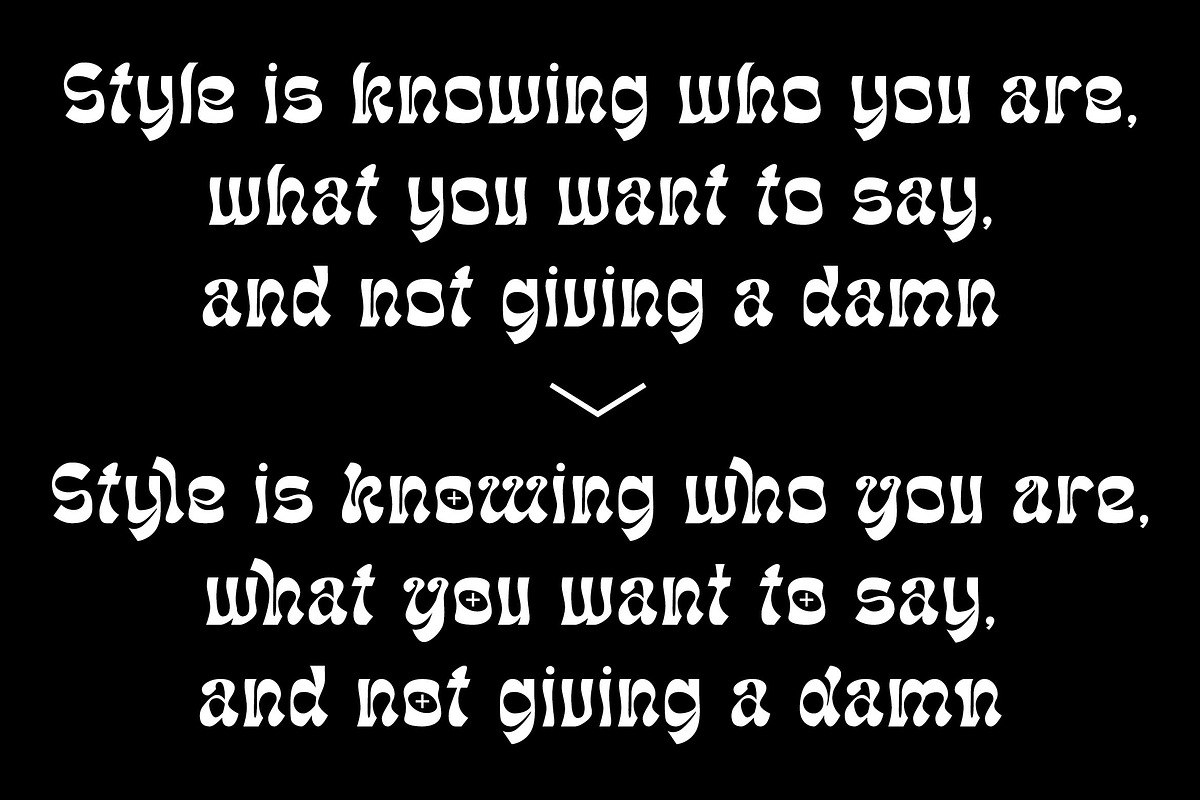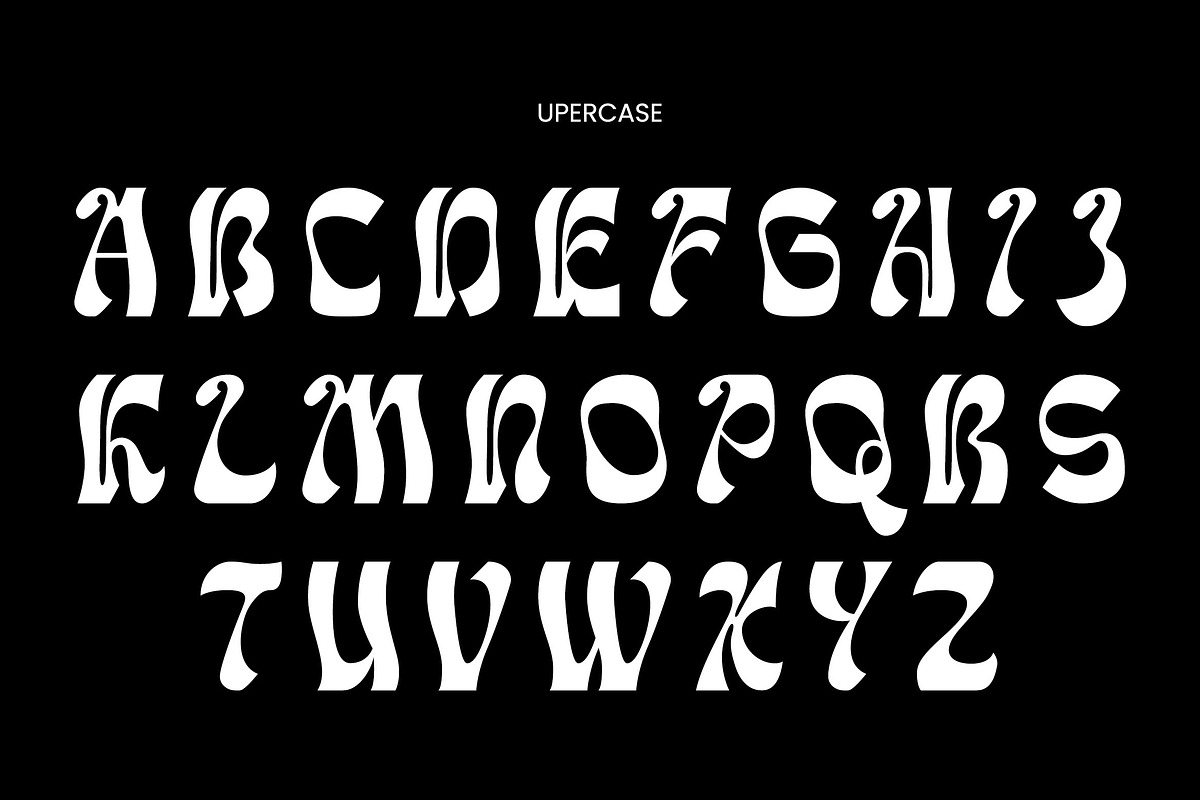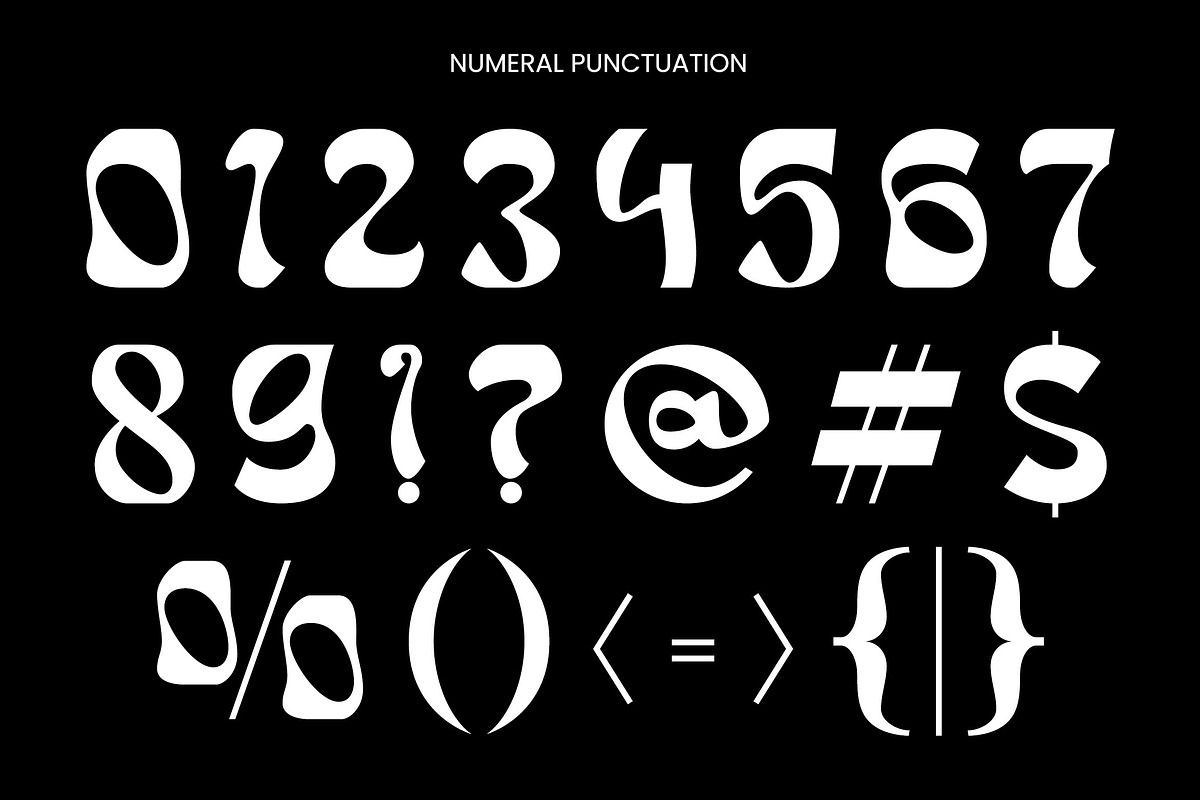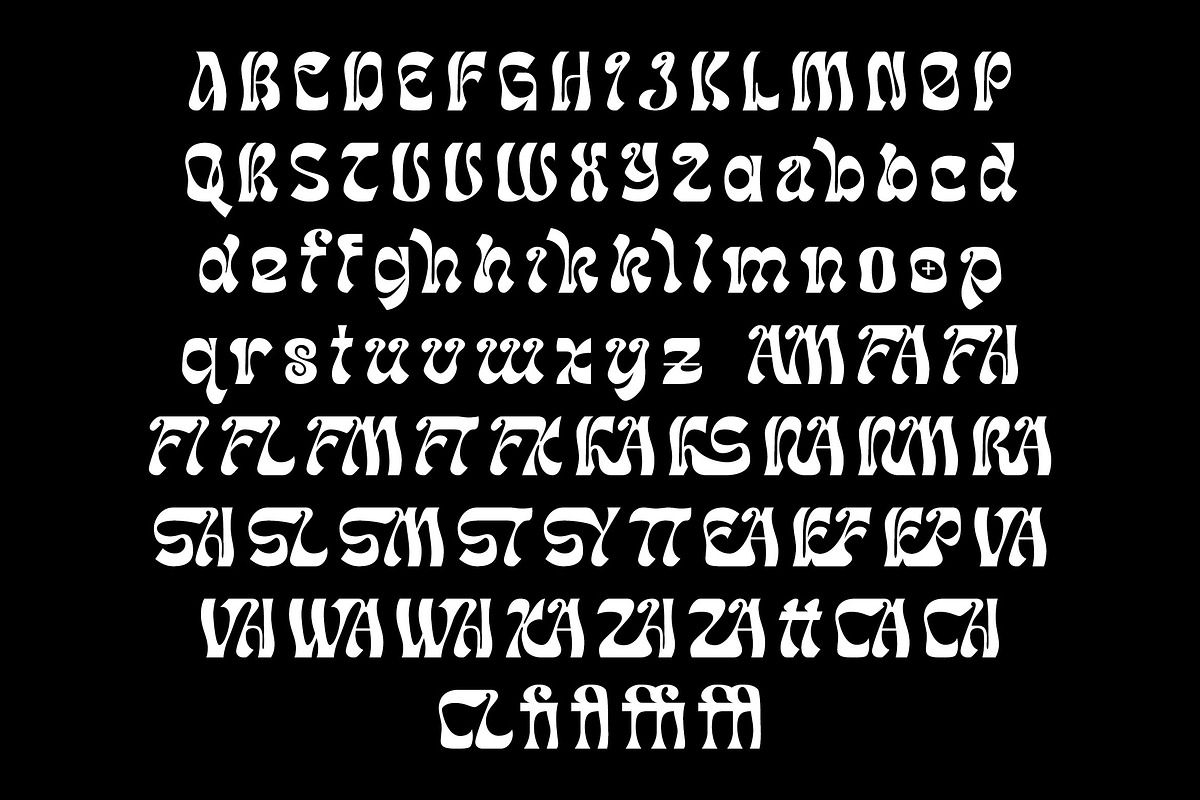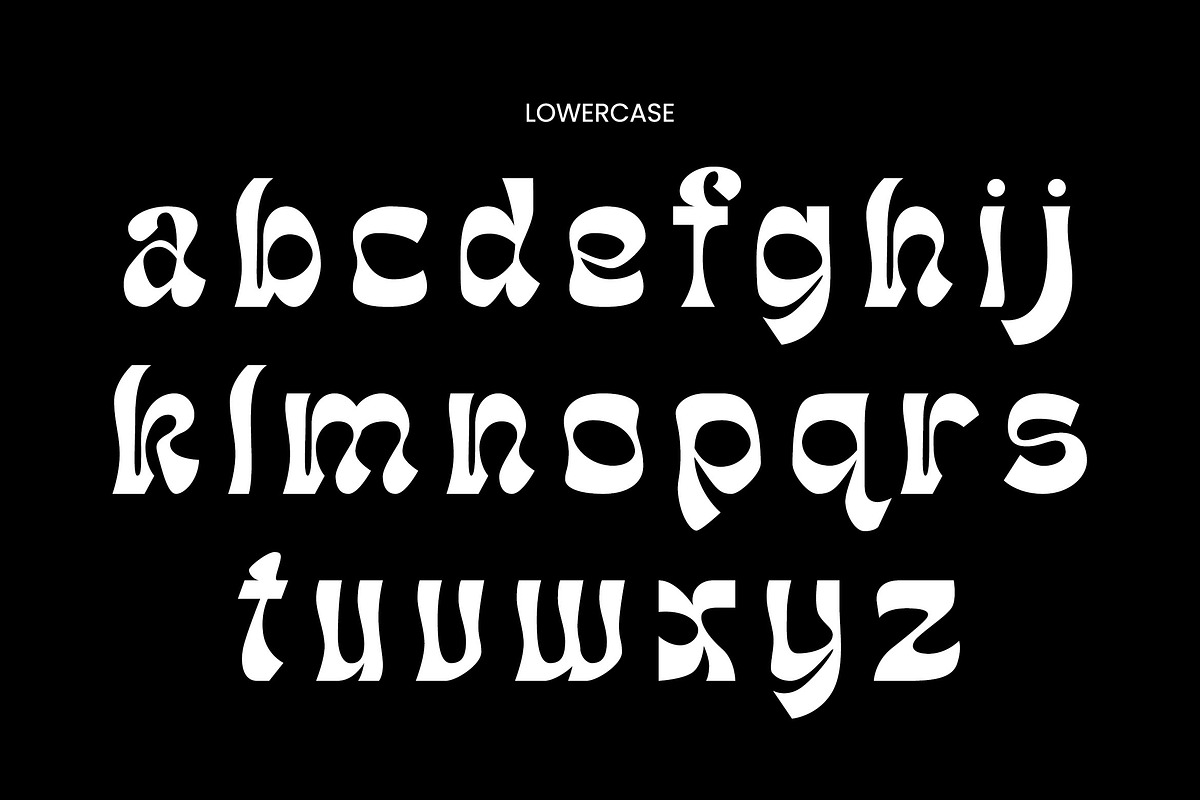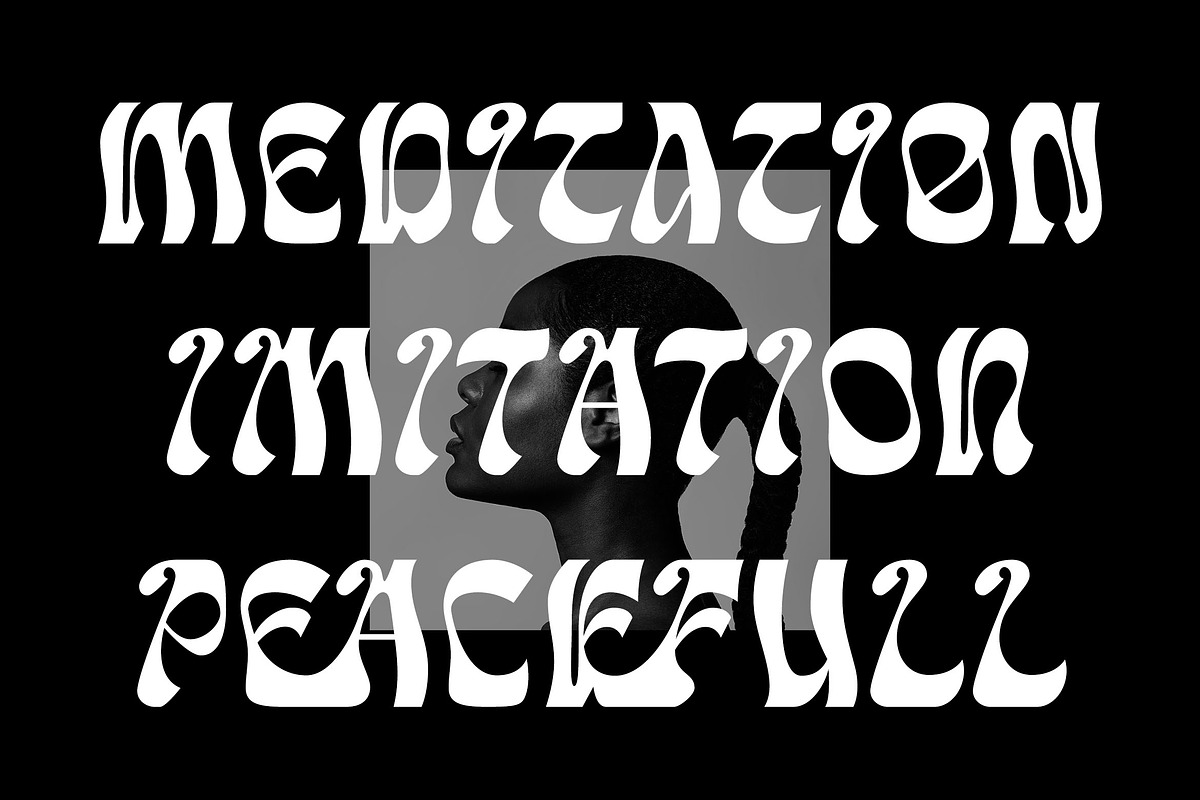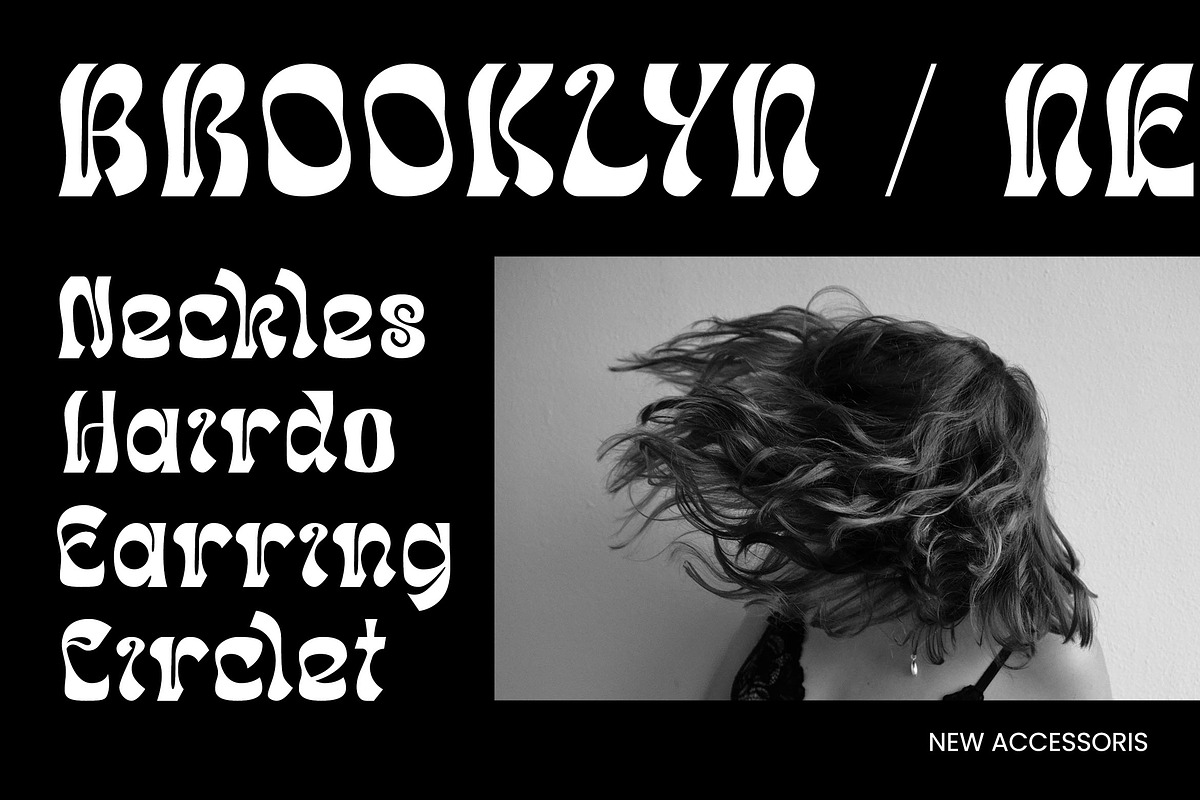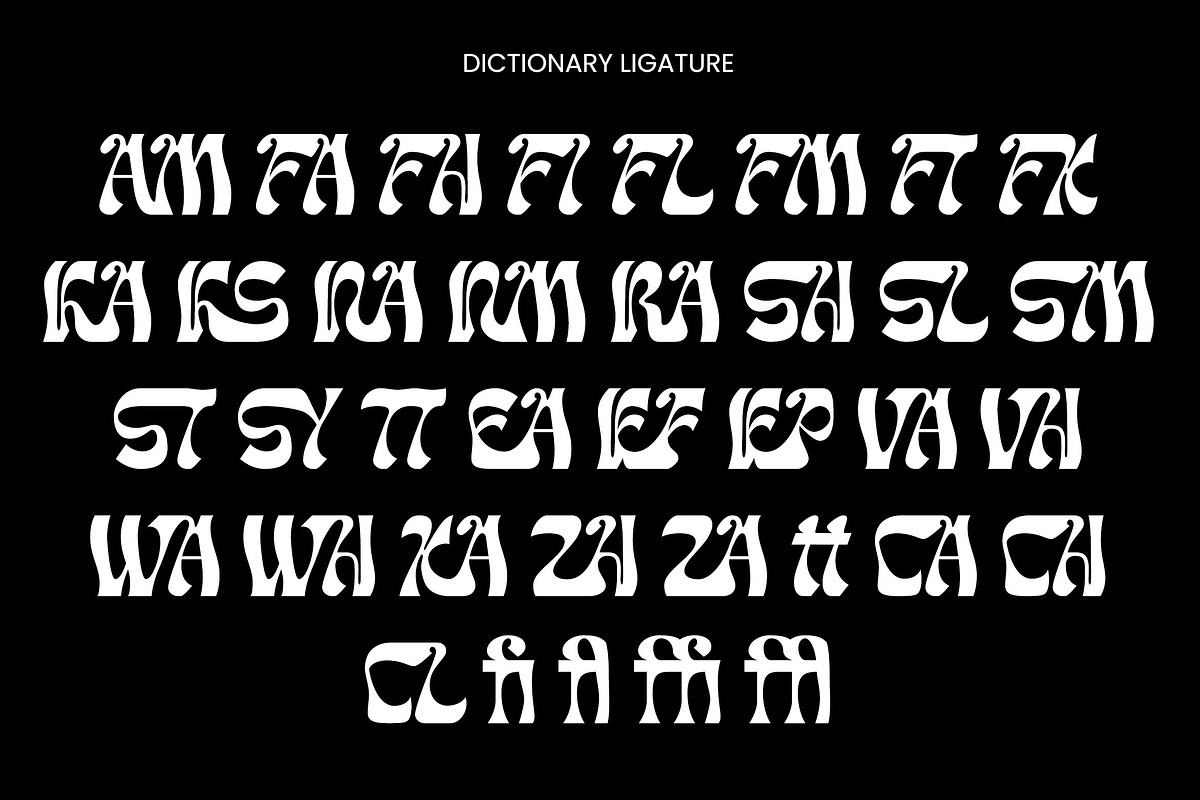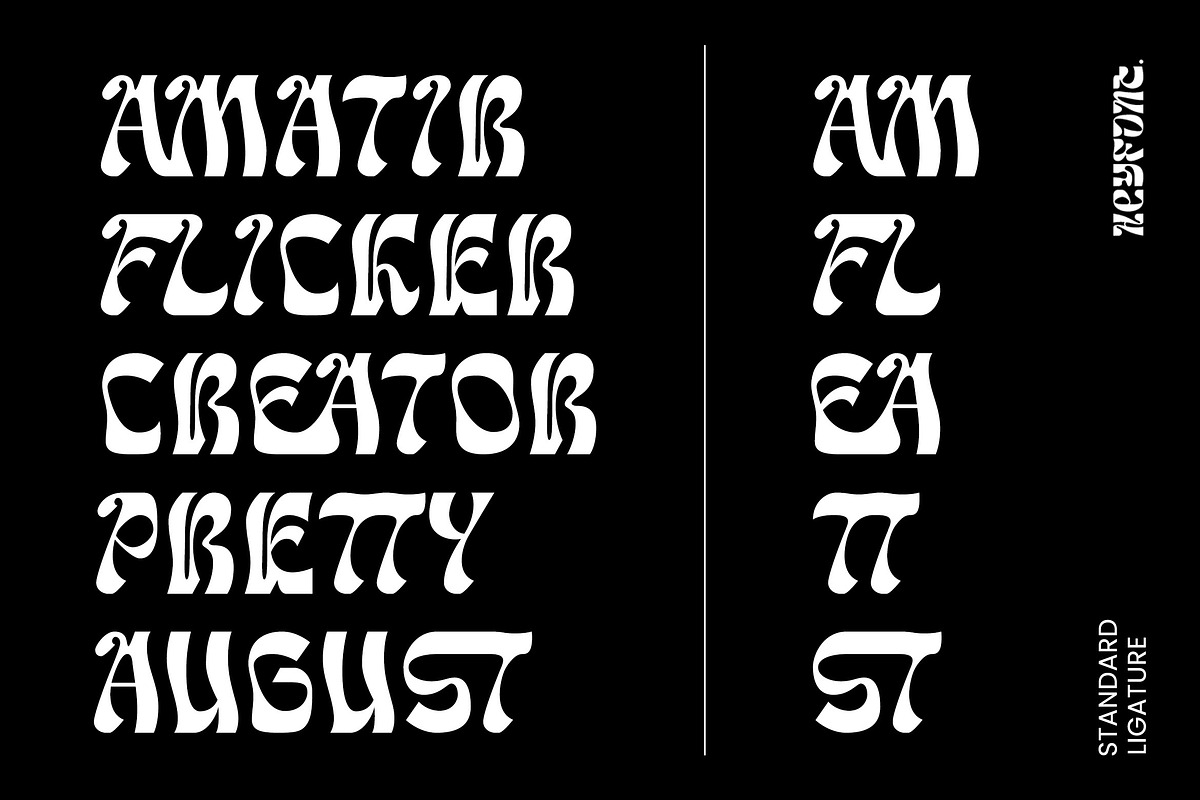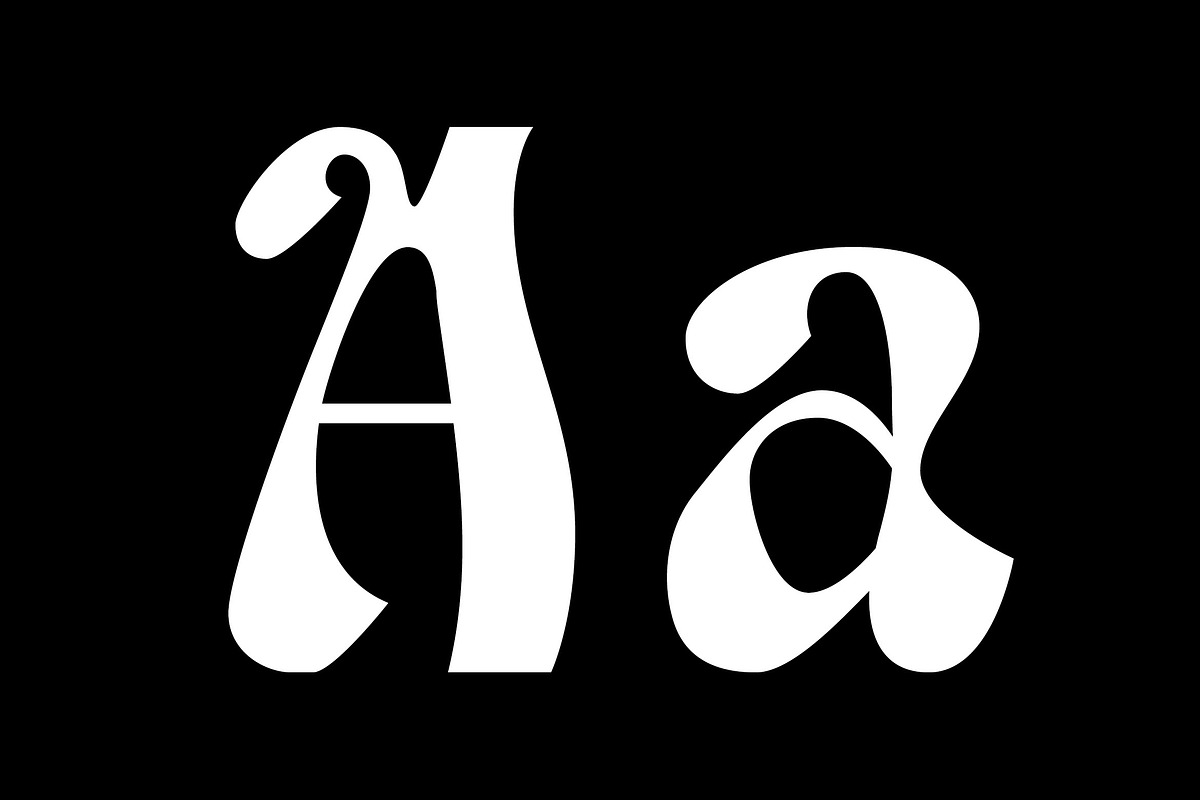
Alchemila - Display Typeface
Alchemila - Display Typeface "UNIQUE serif modern font" likely refers to a typeface that combines elements of traditional serif design with contemporary and distinctive features. Serif fonts have small lines or strokes attached to the ends of characters, which can contribute to a more formal or traditional appearance. The term "modern" in this context typically implies a contemporary or updated style. Here's an explanation of the characteristics and significance of a UNIQUE serif modern font:
-Serif Elements: Serifs are the small lines or strokes at the ends of characters, and they are a hallmark of traditional typography. In a UNIQUE serif modern font, these serif elements are likely to be present but may have a distinctive shape or style that sets them apart from more conventional serif fonts.
-Contemporary Design: The "modern" aspect of the font suggests a contemporary or updated design. This may involve a departure from the more classical serif styles seen in traditional typefaces, incorporating modern design principles, cleaner lines, and a more minimalist aesthetic.
-Distinctive Characters: A UNIQUE serif modern font is likely to feature characters with unique and individual design elements. This could include unconventional serifs, letter shapes, or other stylistic details that make the font stand out and contribute to its uniqueness.
-Versatility: While serif fonts are often associated with formality and readability, a UNIQUE serif modern font may offer versatility suitable for a range of design applications. It could be used in both traditional and modern contexts, providing flexibility for various design projects.
-Applicability to Branding: Fonts play a crucial role in branding, and a UNIQUE serif modern font could be an excellent choice for businesses or projects that want to convey a sense of tradition and reliability while maintaining a contemporary and innovative image.
-Digital and Print Design: Modern serif fonts are often designed with both digital and print applications in mind. The clarity of the typeface, even at smaller sizes, and its aesthetic appeal make it suitable for a variety of design projects, from websites and apps to print materials like brochures and posters.
-Attention to Detail: The uniqueness of the font may be reflected in the careful attention to detail in each character. This could include refined curves, balanced proportions, and other design elements that contribute to the overall visual appeal and readability of the font.
-Available Features: Unique serif modern fonts may come with additional features, such as alternative characters, ligatures, or stylistic sets, allowing designers to customize the appearance of the text for specific design needs.
When selecting or working with a UNIQUE serif modern font, designers should consider the overall design goals, the intended audience, and the context in which the font will be used